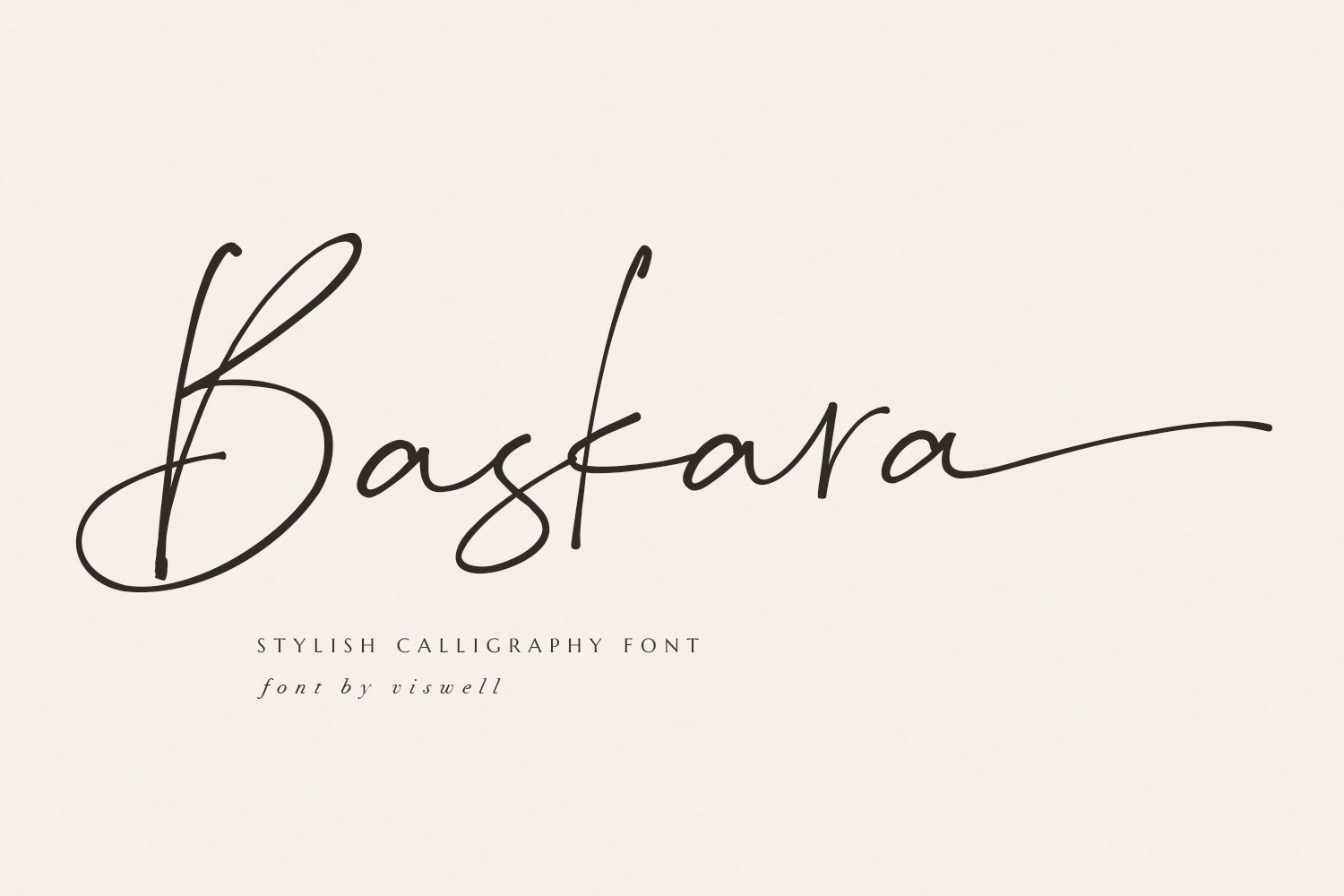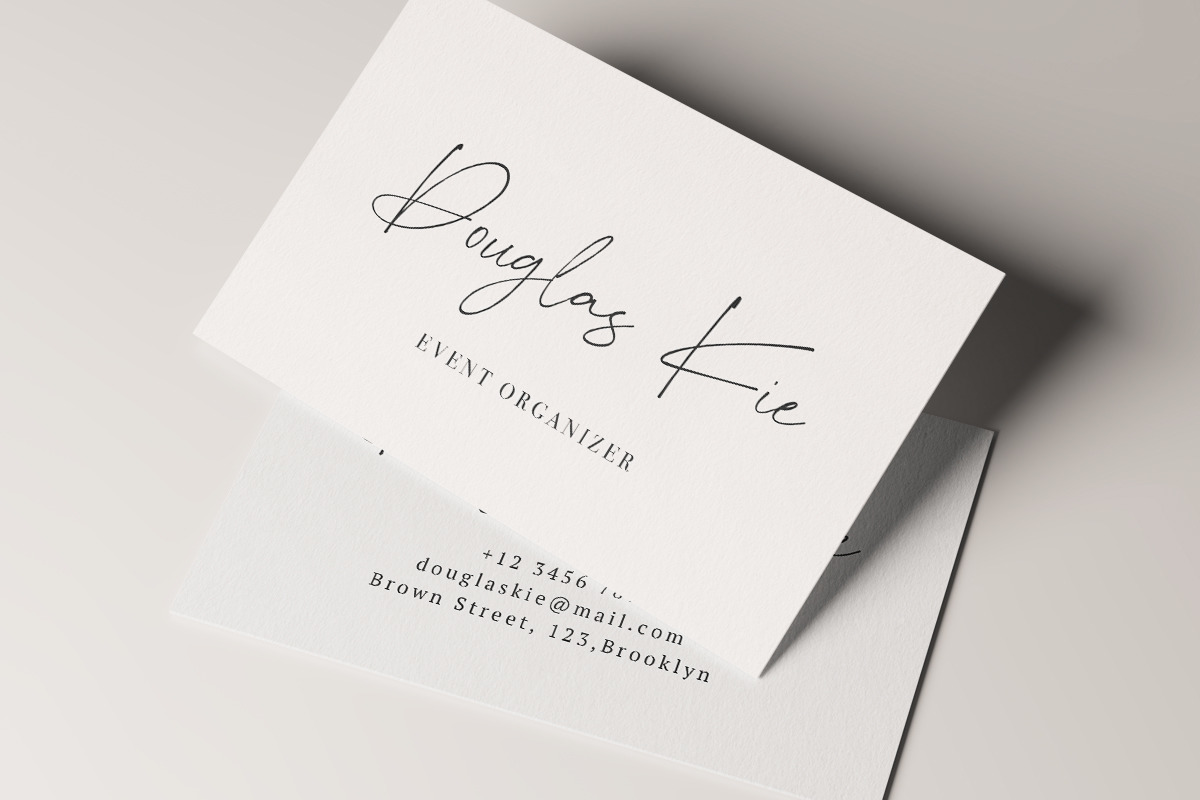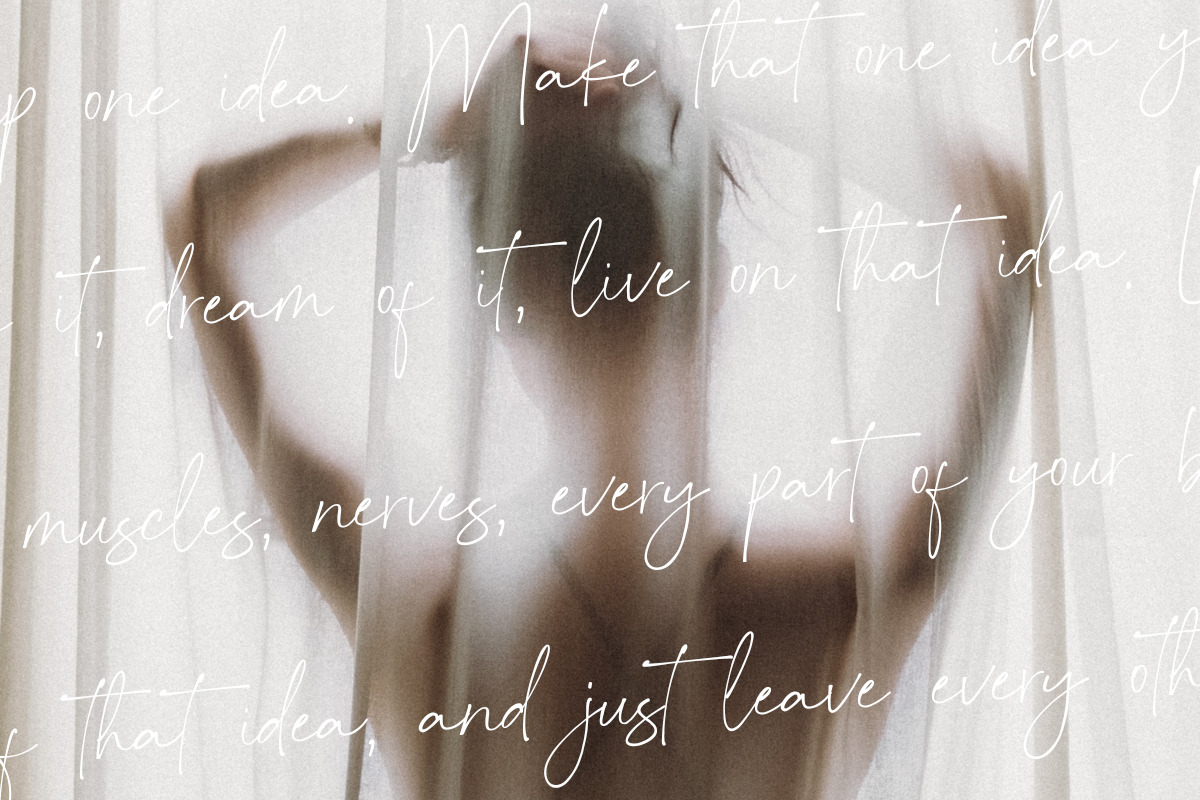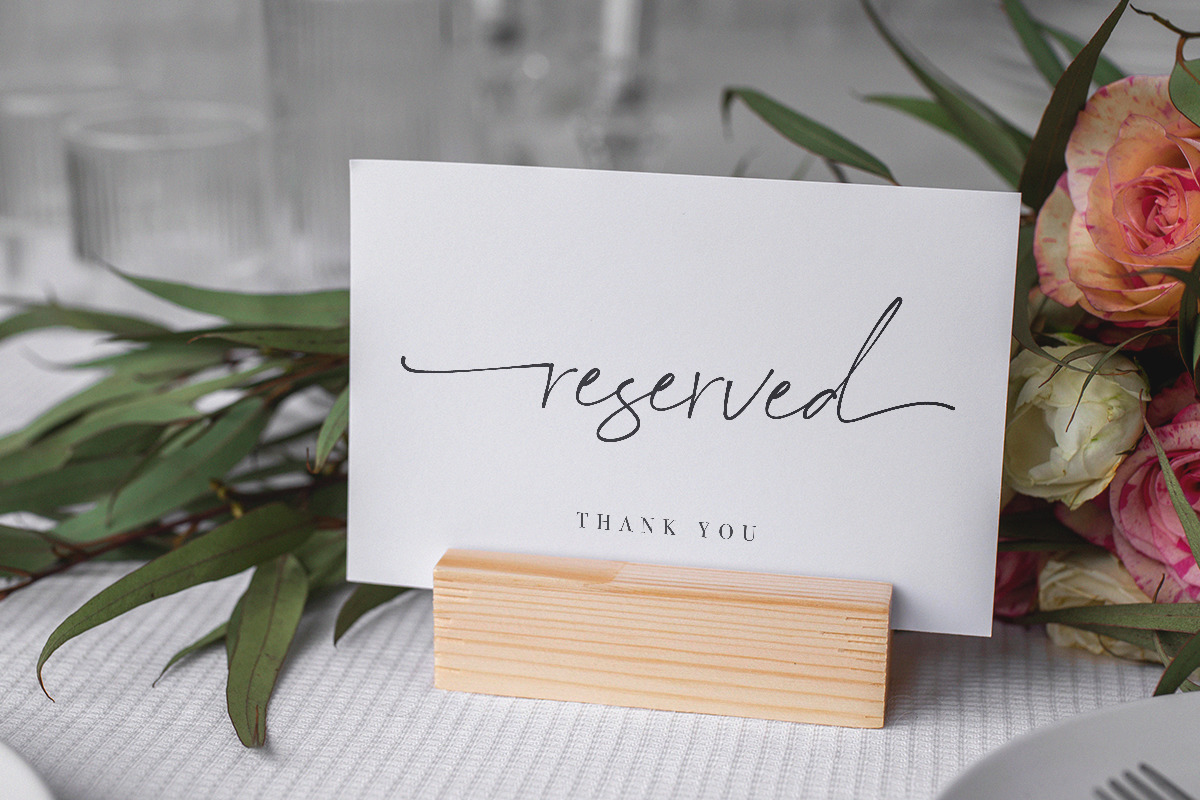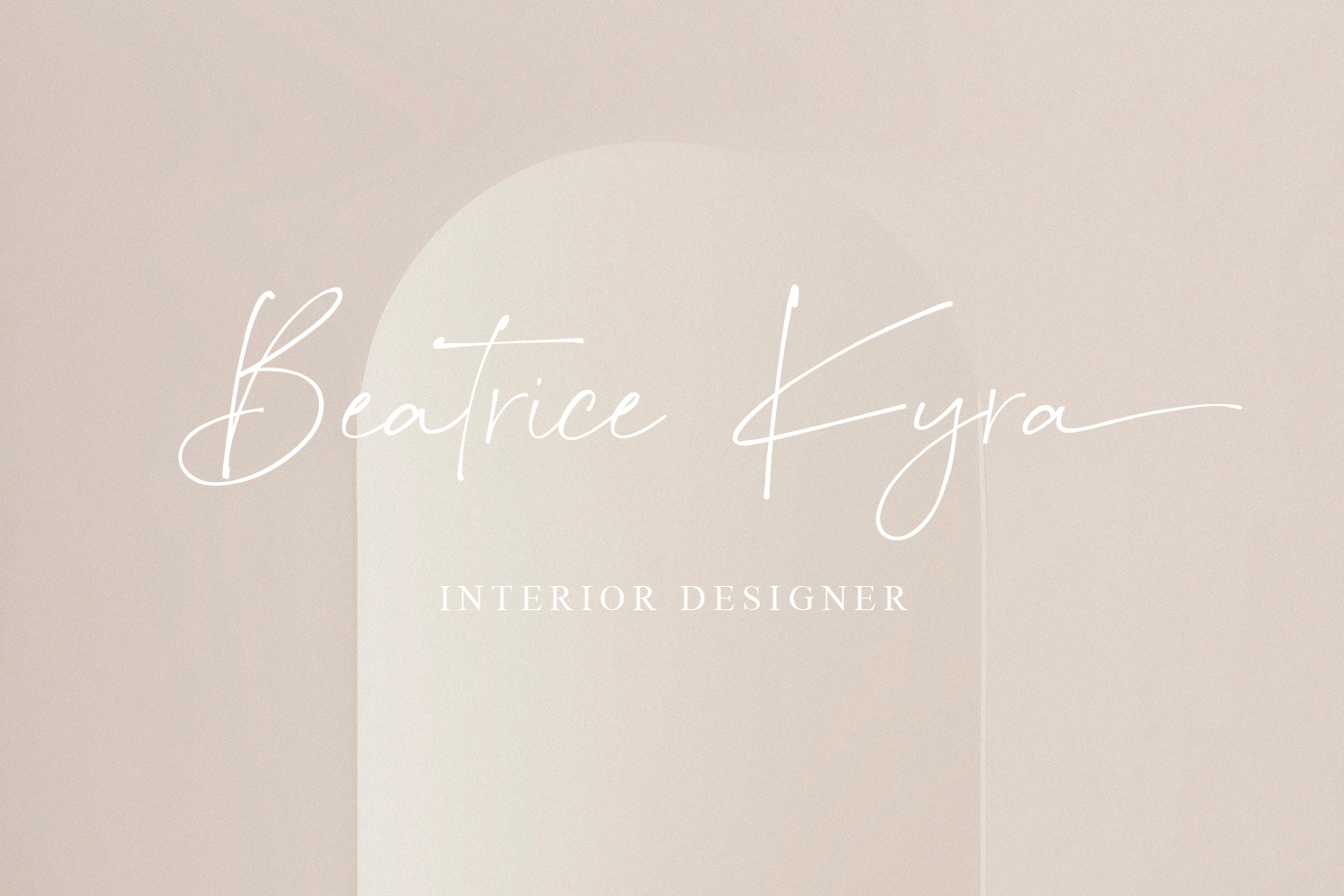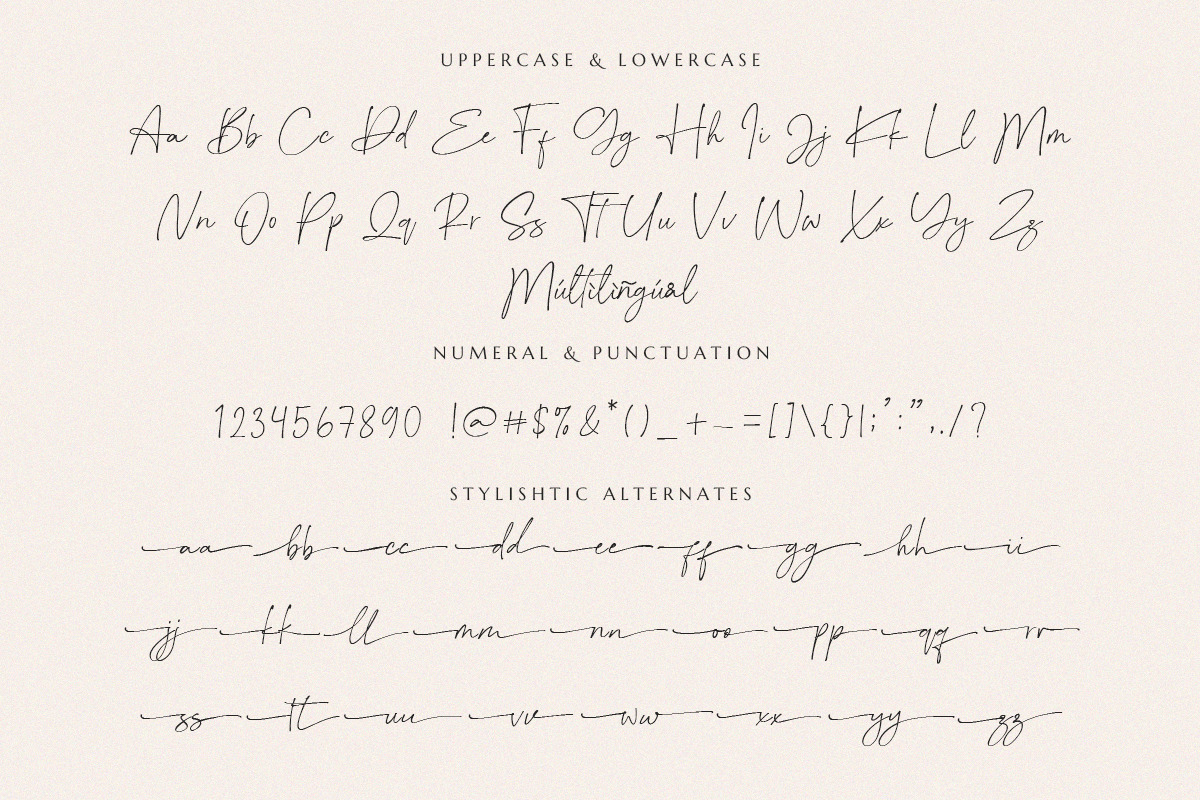
Baskara Font
Baskara is a stylish calligraphy font that will be suitable for your various design needs such as branding, logo signatures, weddings, photography and many others. This font comes with a stylishtic ending and beginning lowercase swash and standard ligatures.